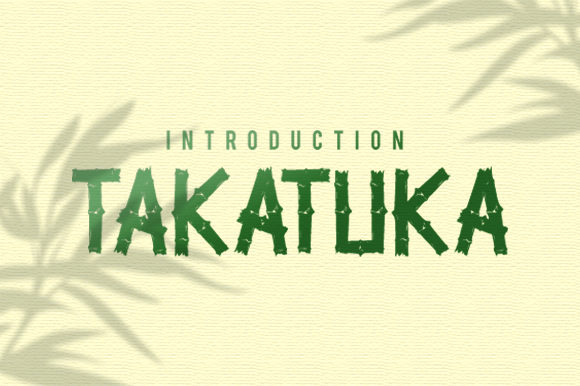
TakaTuka Font
Journey to a world of captivating charm and authentic beauty with TakaTuka, the extraordinary display font that will captivate your senses and leave an everlasting impression on your designs. Inspired by the grace of bamboo, TakaTuka exudes a natural elegance that blends seamlessly with the digital realm.
Prepare to be mesmerized by its friendly and inviting aura, perfect for projects that demand a sense of warmth and approachability. TakaTuka's characters dance harmoniously on the screen, creating a visual symphony that captivates the eyes. Unleash your creativity and watch as your designs flourish with TakaTuka's unique charm.
Embrace the versatility of TakaTuka, a font that effortlessly adapts to a myriad of design endeavors. Whether you're crafting enchanting invitations, designing captivating social media posts, or creating eye-catching logos, TakaTuka will be your steadfast companion, elevating your designs to new heights.
With TakaTuka, you hold the key to unlocking a world of endless possibilities. Its captivating aura invites you to explore uncharted creative territories, where imagination reigns supreme. Let your ideas take flight and witness the transformative power of TakaTuka as it breathes life into your designs.
TakaTuka is more than just a font; it's an experience. Immerse yourself in its friendly embrace and let your creativity soar. Whether you're a seasoned designer or just starting your journey, TakaTuka will be your trusted guide, inspiring you to create masterpieces that resonate with beauty and authenticity.